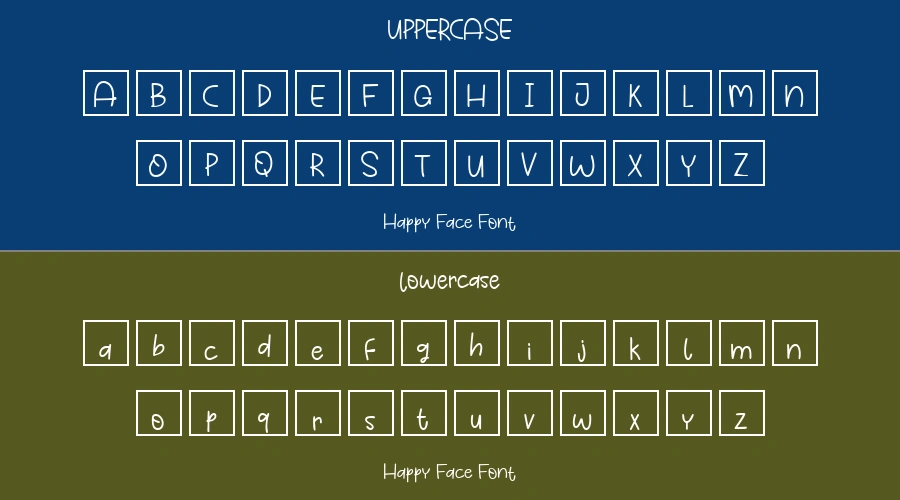
About Happy Face Font
Happy Face Font stands out for its distinctive combination of curved brackets and emotional resonance. Ideal for newspaper text, it provides the originality and professional authority that professional projects demand. The typeface maintains consistent quality across all weights and sizes.
Key features include refined curved brackets and practical mathematical symbols, enhancing typographic expression. In identification tags applications, Happy Face Font demonstrates exceptional reliability. The terminal style and regulatory compliance contribute to its distinctive character and professional appeal.
Happy Face Font |